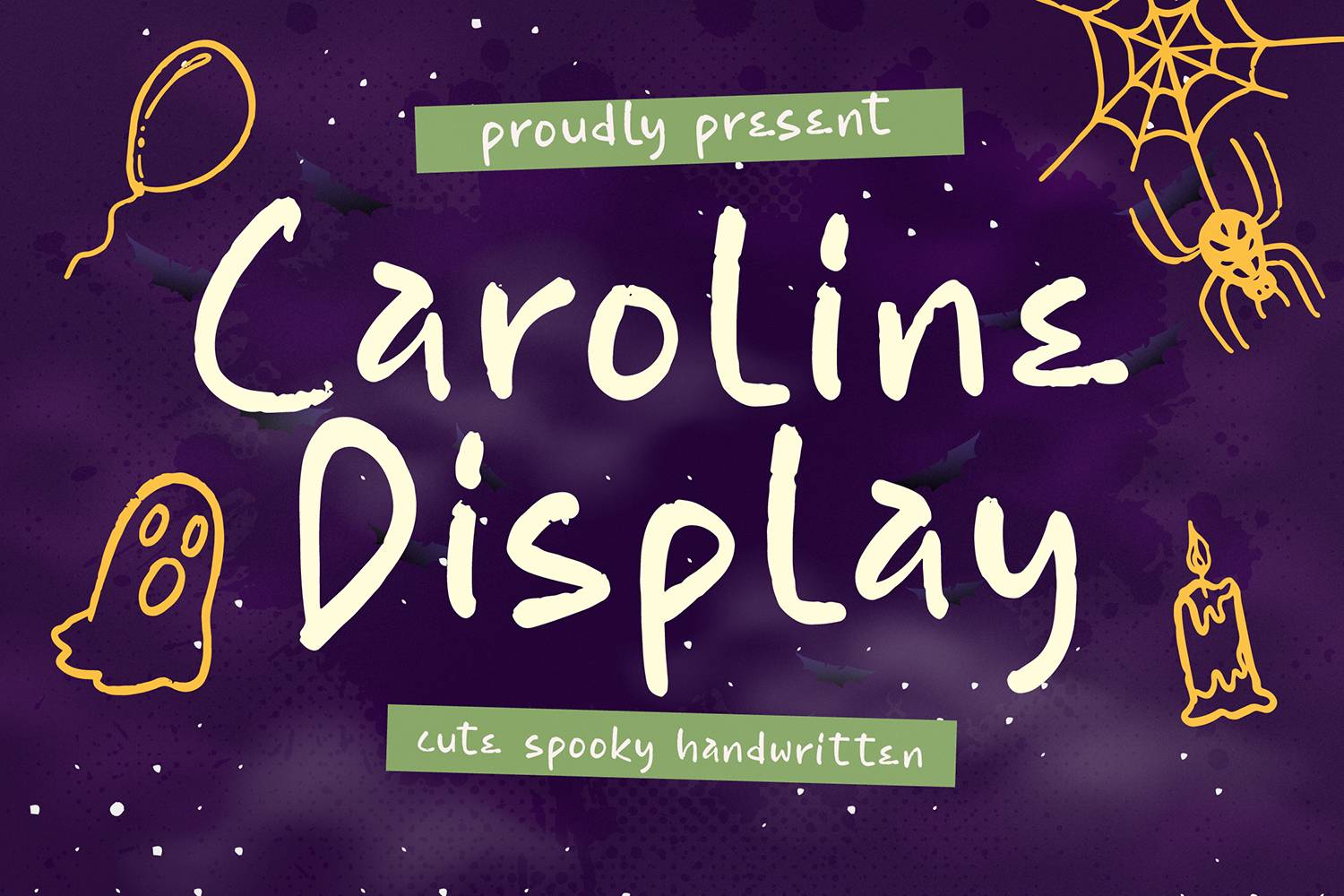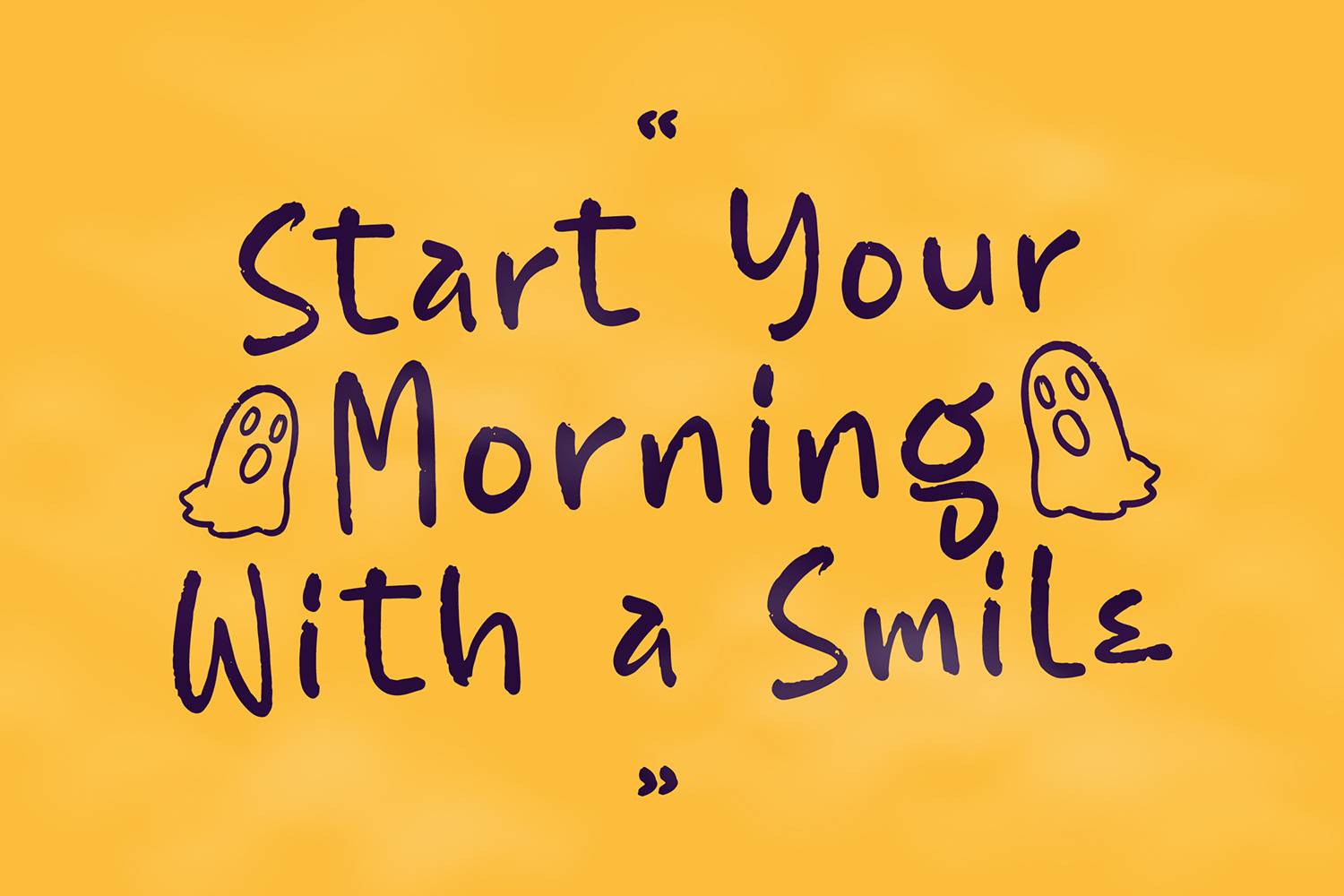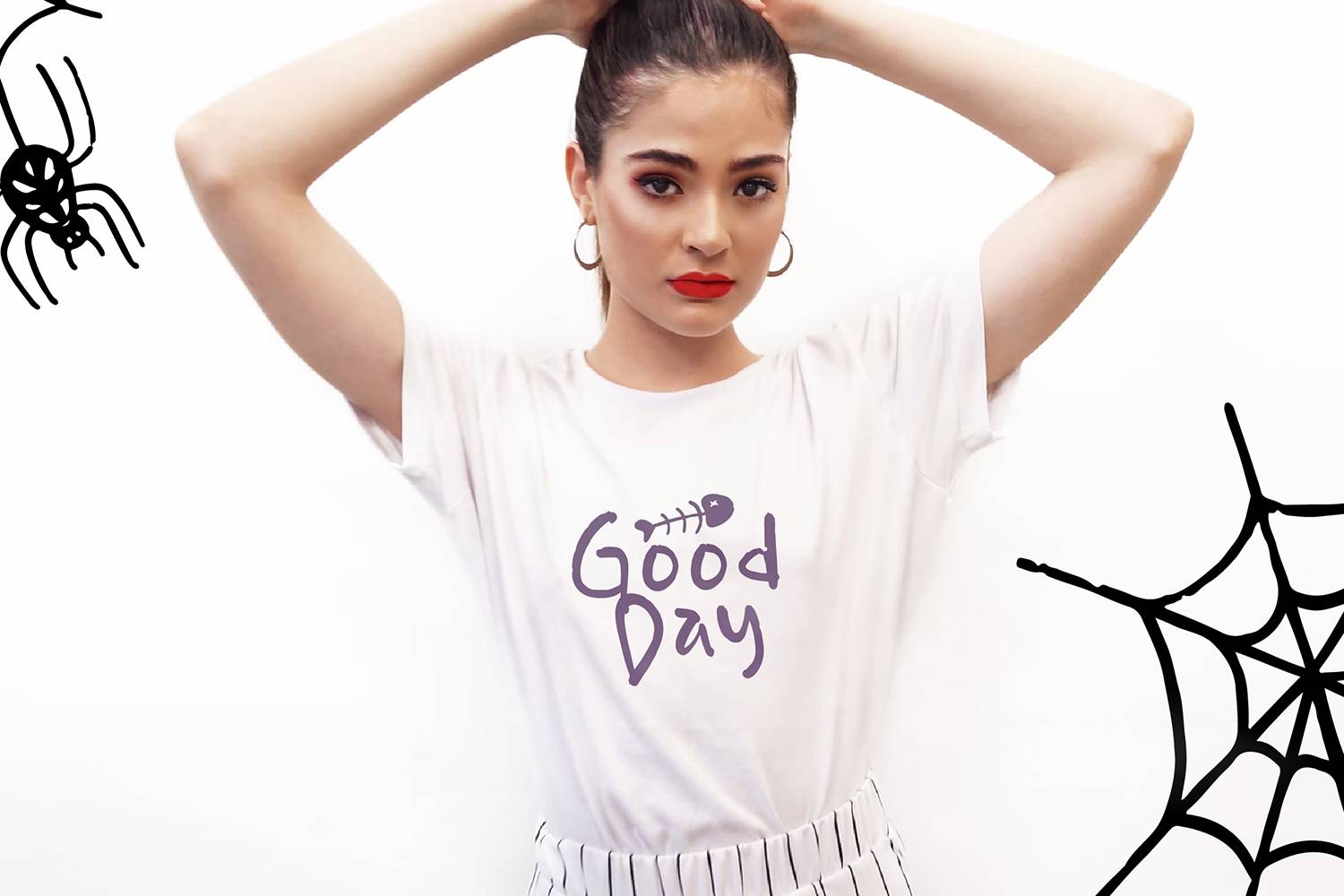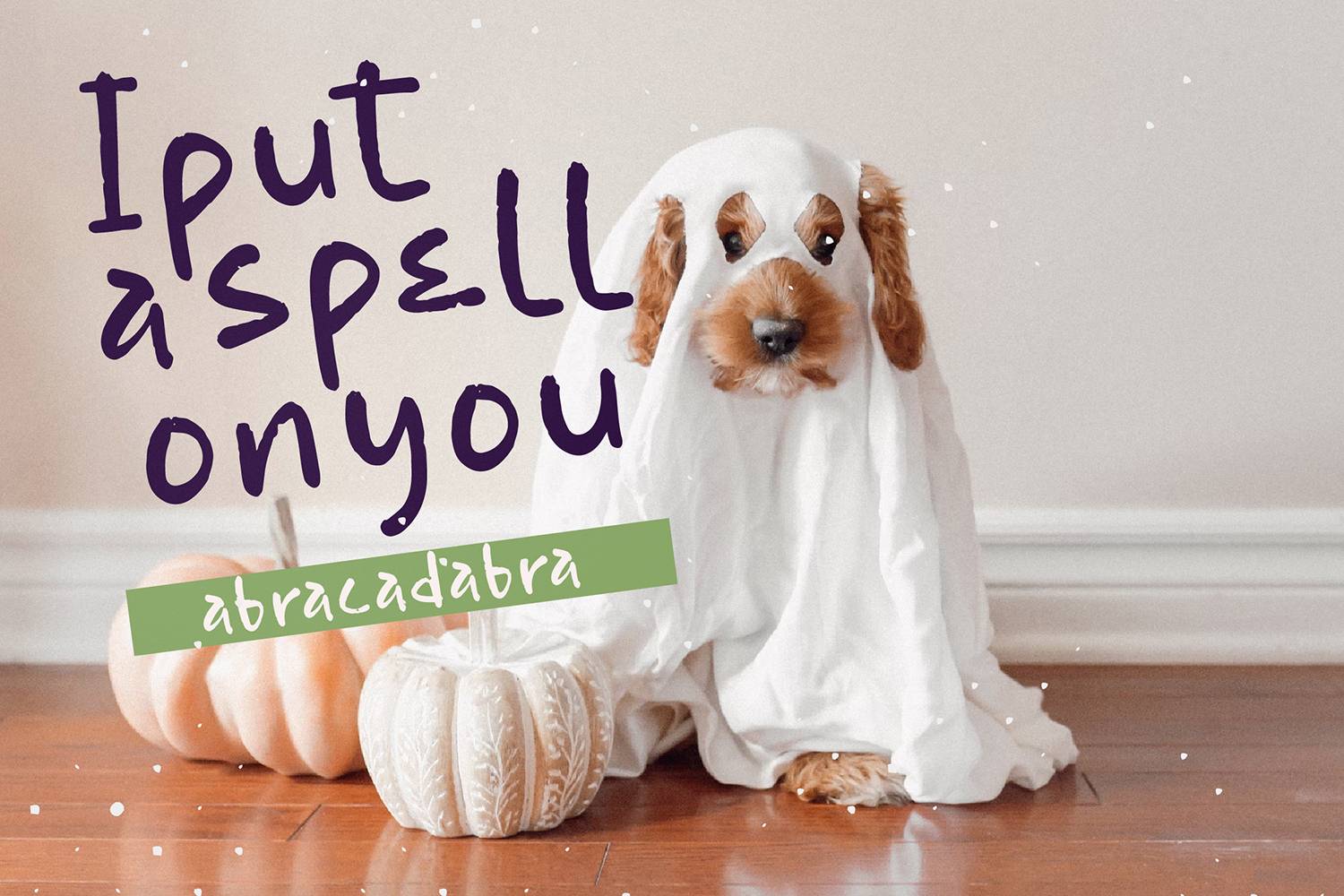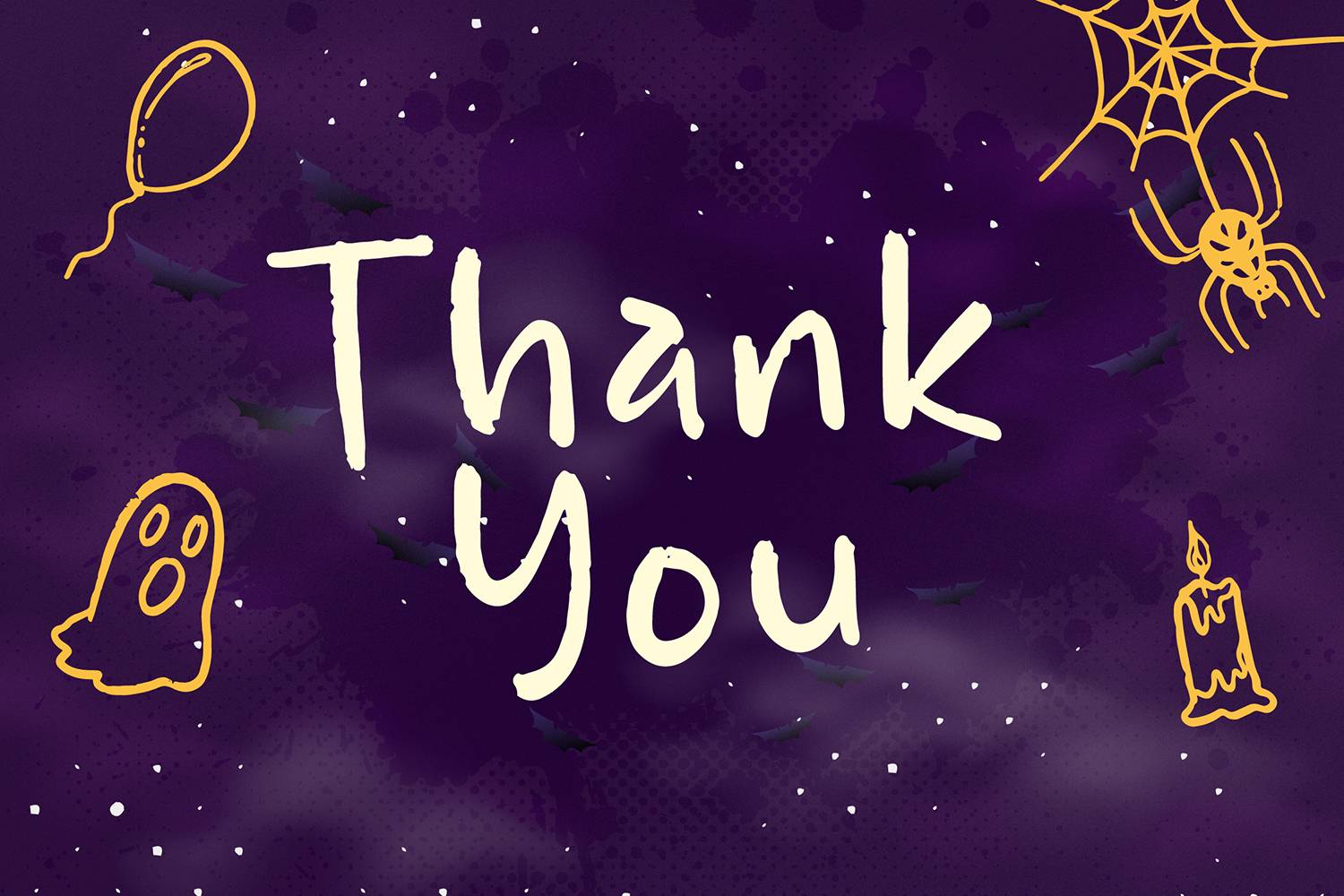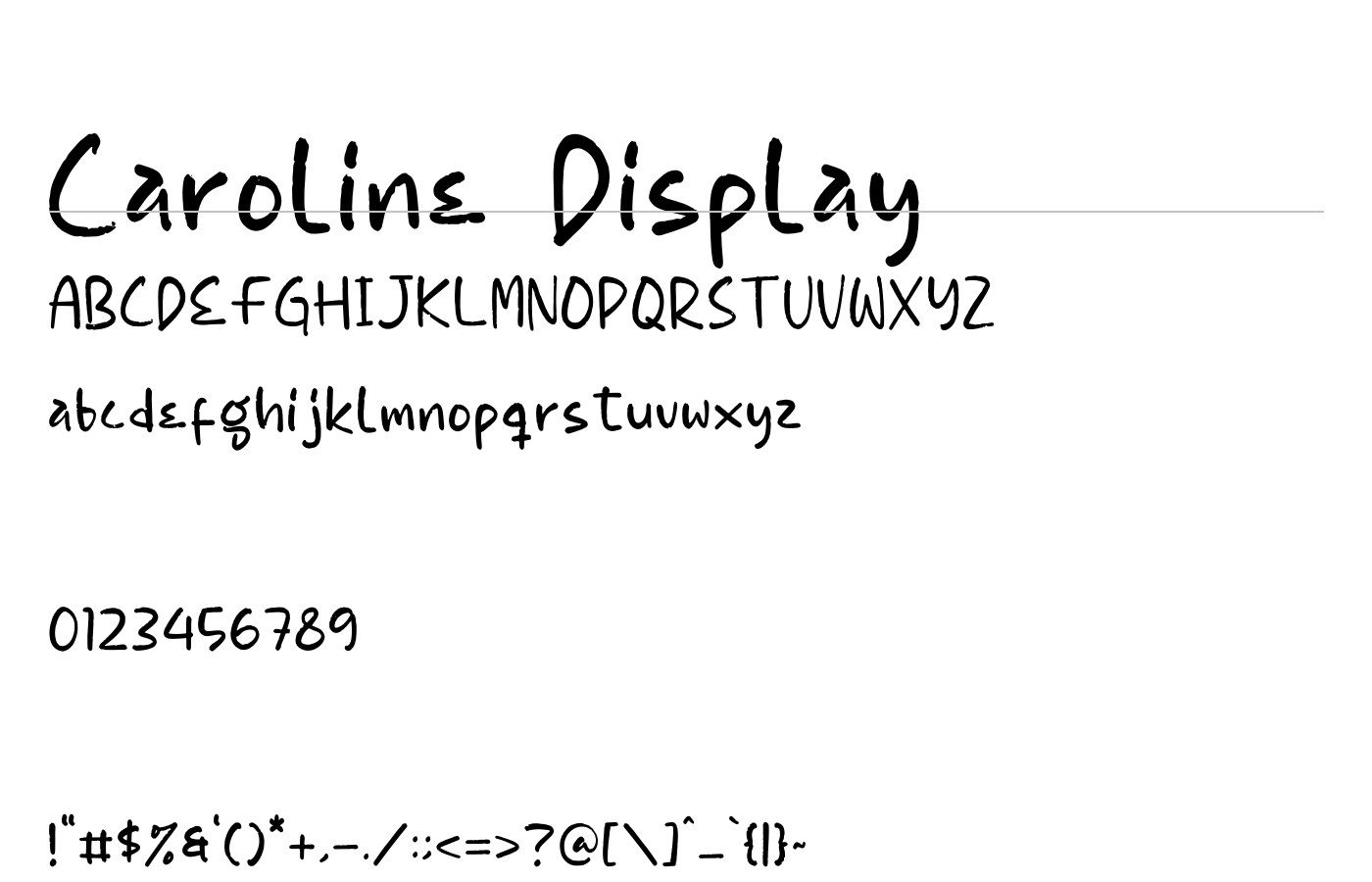
Caroline Display Font is a playful and casual handwritten typeface with a natural, organic feel. Its irregular strokes and tall, slightly condensed letterforms give it a lively and approachable personality, making it perfect for designs that seek a friendly and informal touch, such as invitations, branding for creative businesses, or personal projects. Its legibility and unique character also make it a strong choice for expressive headlines and creative displays.
Caroline Display Font
About Caroline Display Font